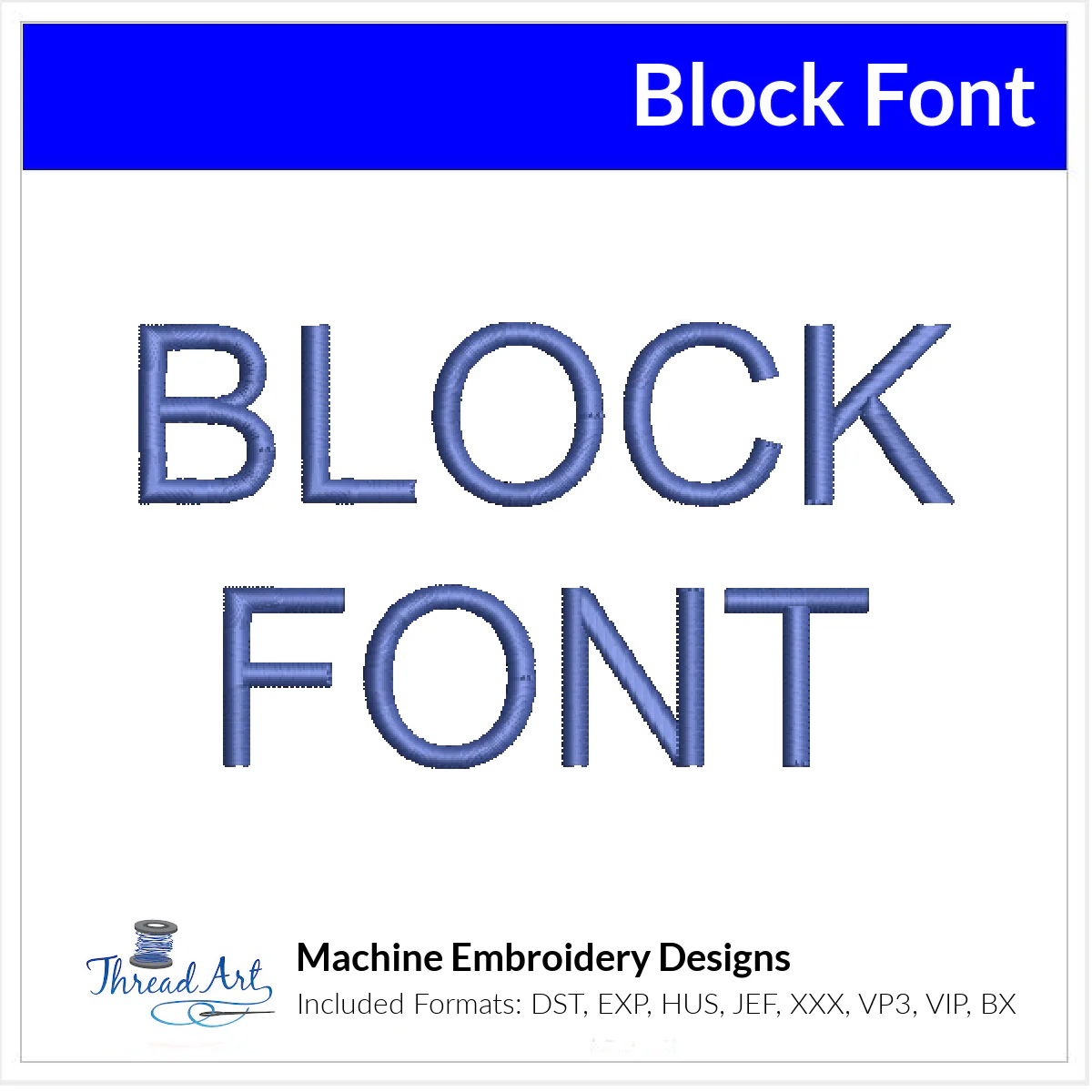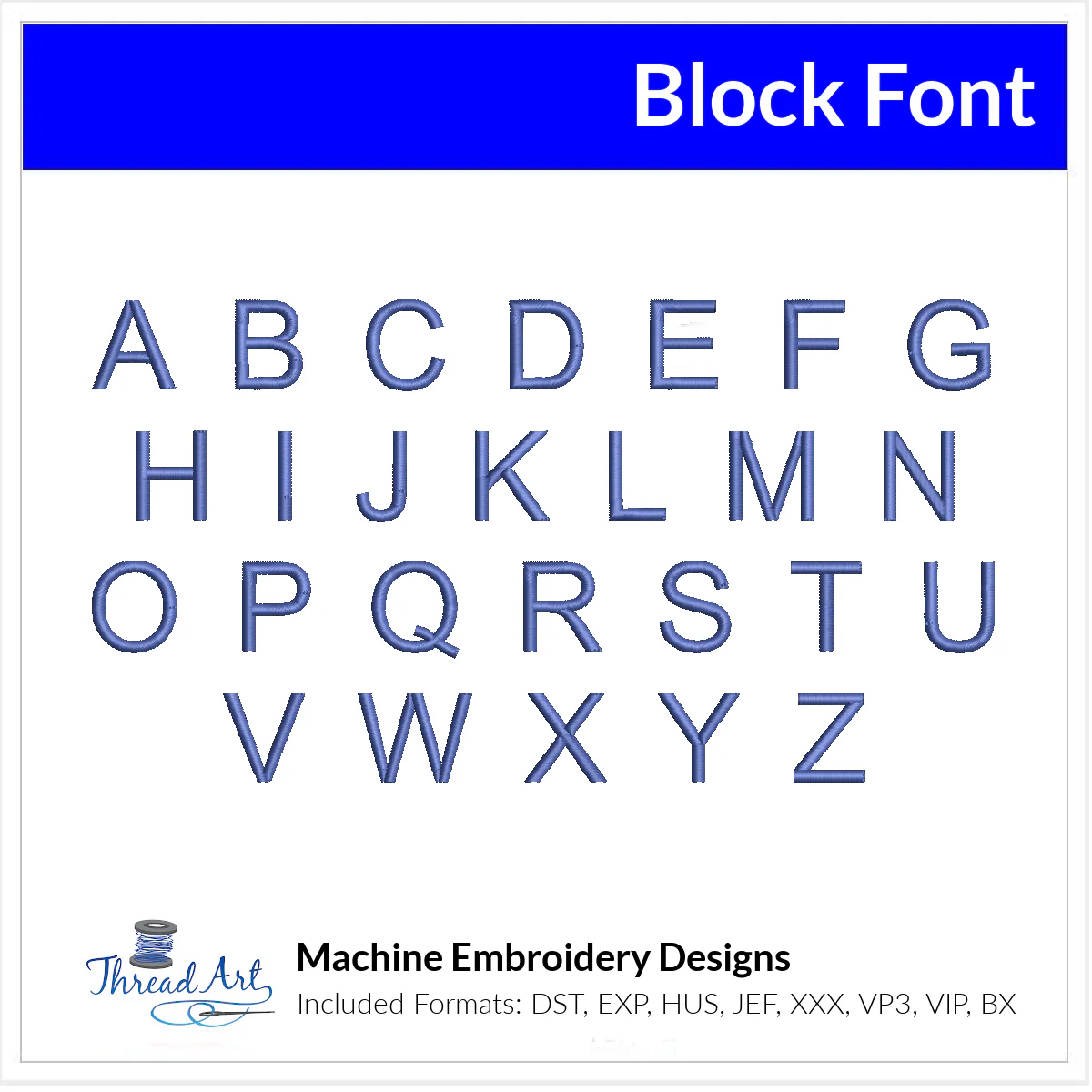
Block Font Design -- Machine embroidery font design set with 7 different design sizes included. Letters are 4", 3.5" 3", 2.5",2" 1.5" and 1" tall and includes uppercase monogramming style in popular formats: DST, EXP, HUS, JEF, PES, XXX, VIP, VP3, BX. Convenient for those with multiple machines. Satin stitch for 2" 1.5" and 1" and fill stitch for 4", 3.5" 3", 2.5". You will have instant access to downloads after purchase. Choose physical USB stick to have designs sent via mail on a usb stick.